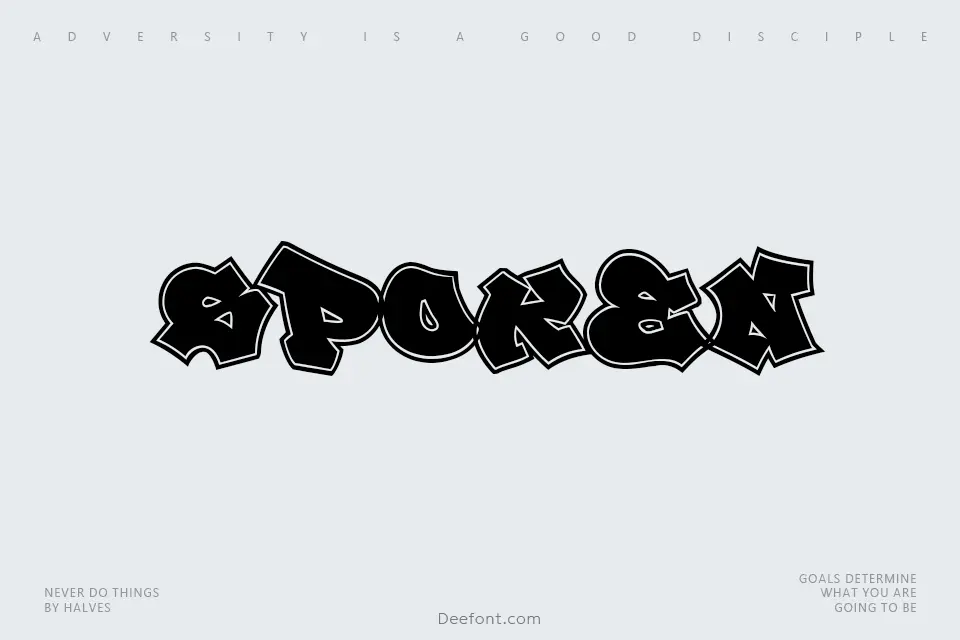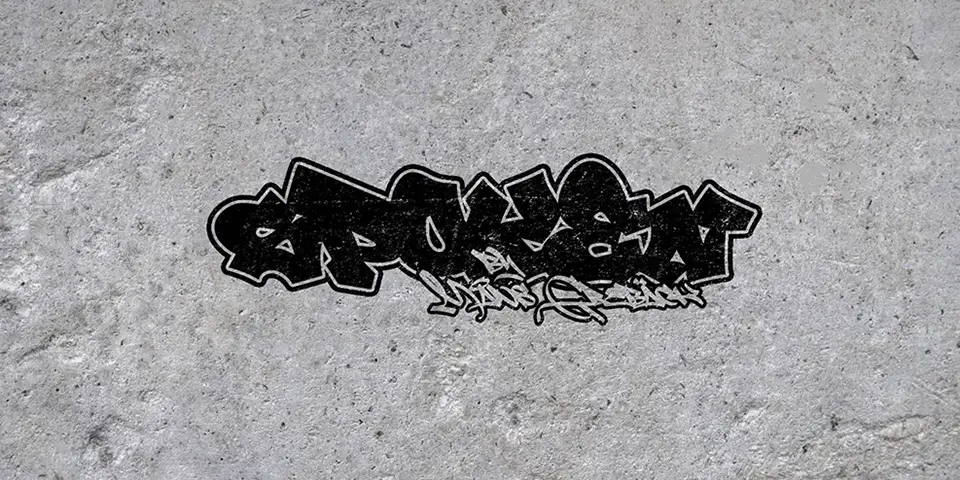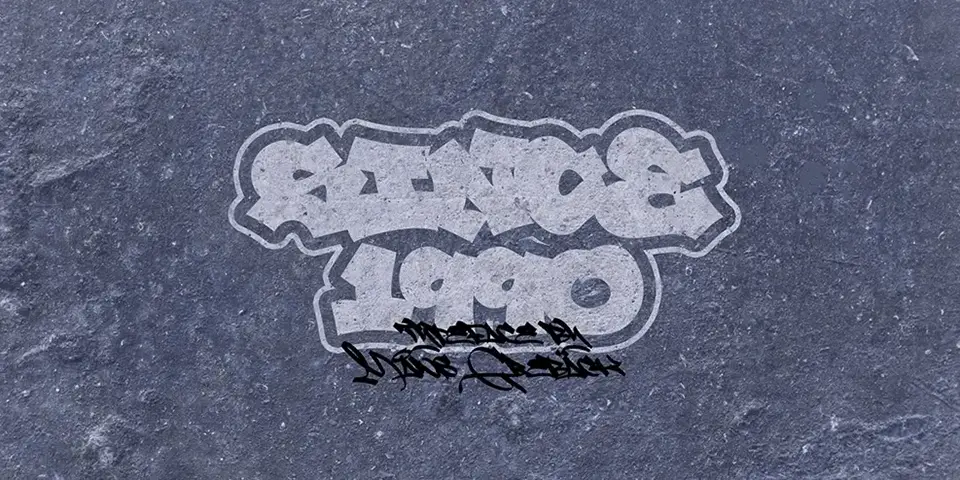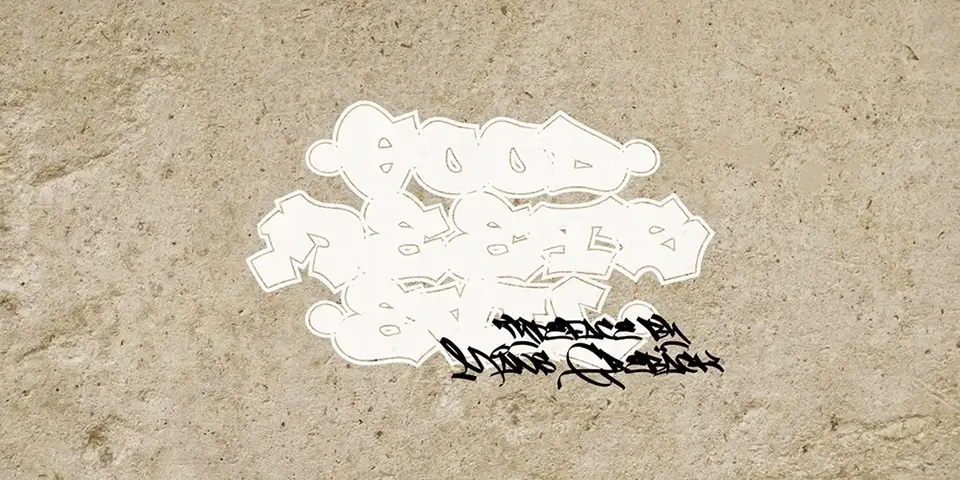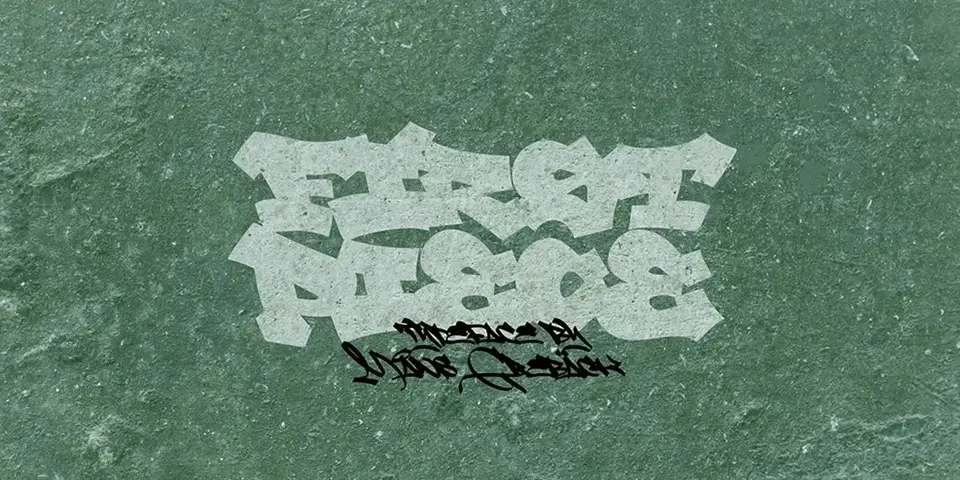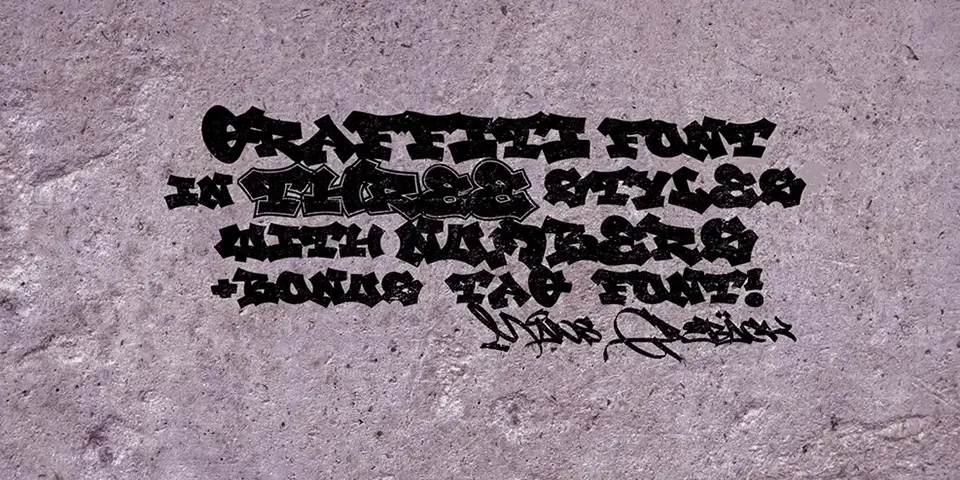
Spoken Font
Spoken is an old school graffiti typeface featuring three distinctive styles: outlined, bold background, and plain variants. This urban-inspired script font delivers dynamic motion and grunge aesthetic, perfect for video game posters, movies, stickers, and creative projects requiring authentic street art vibrancy. Each style offers complete multilingual character support for diverse creative applications.